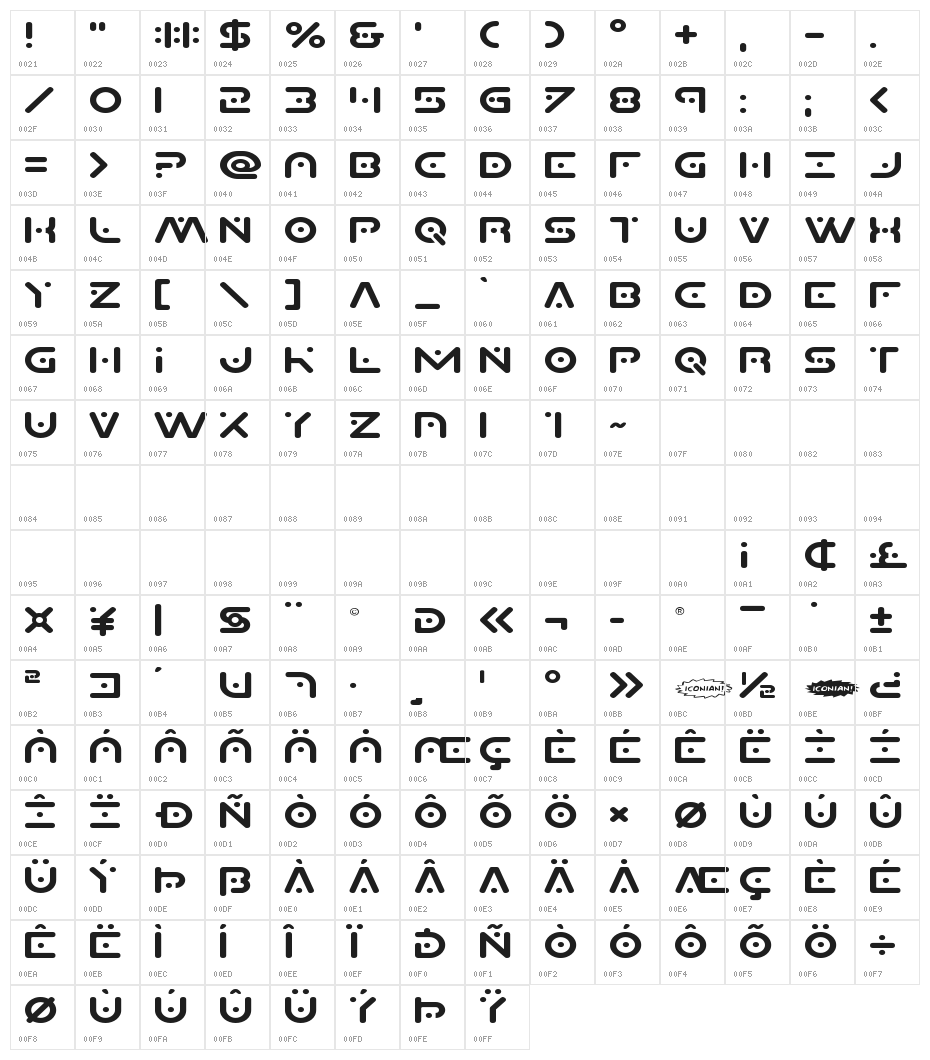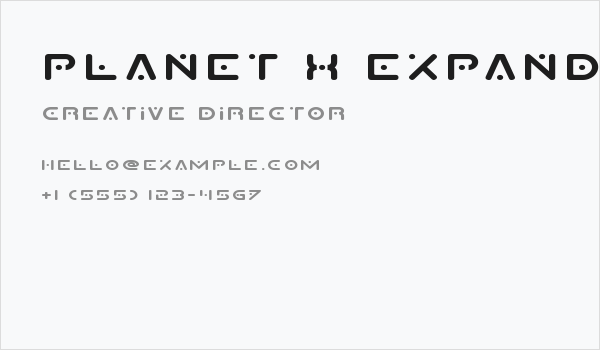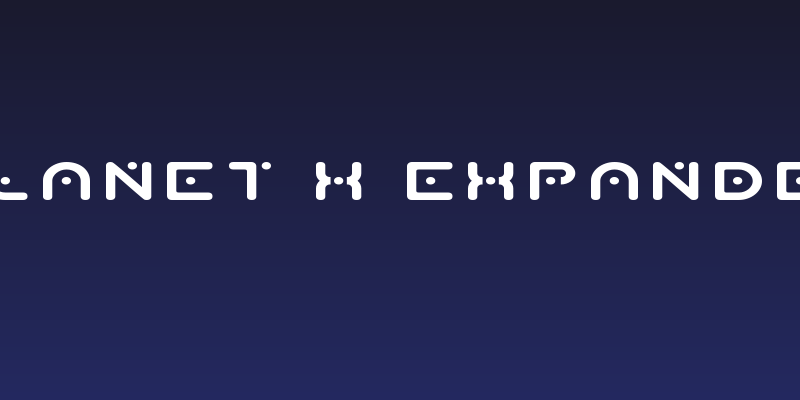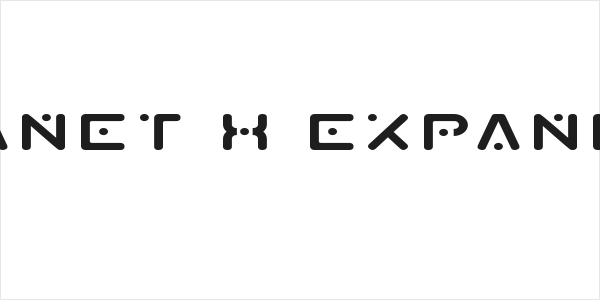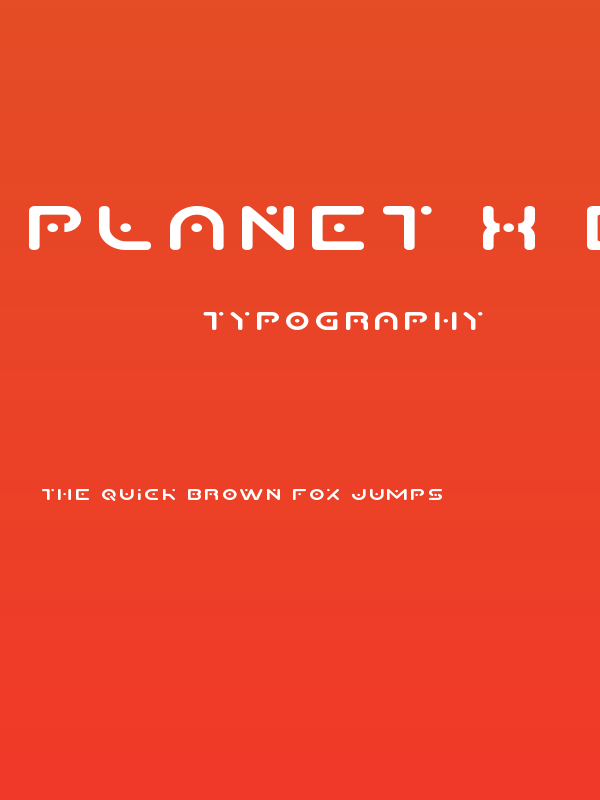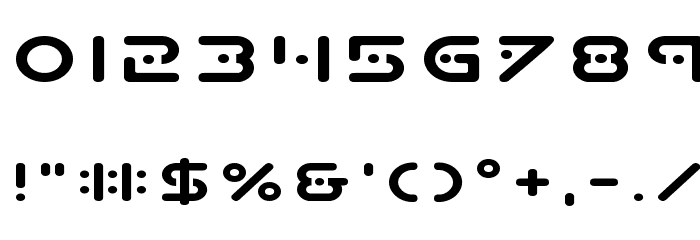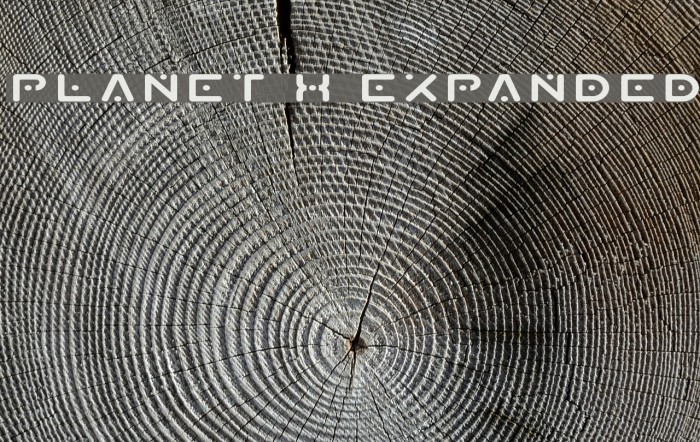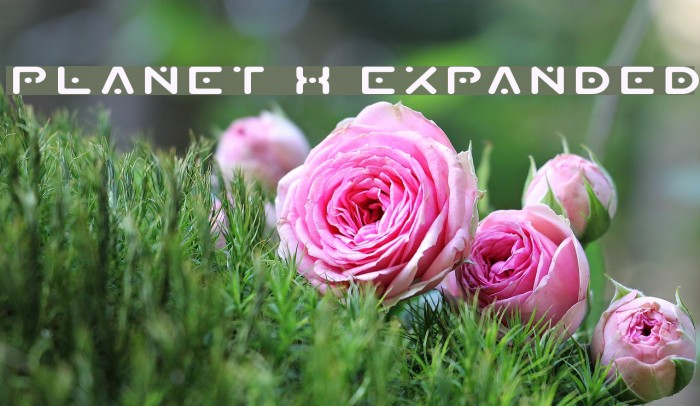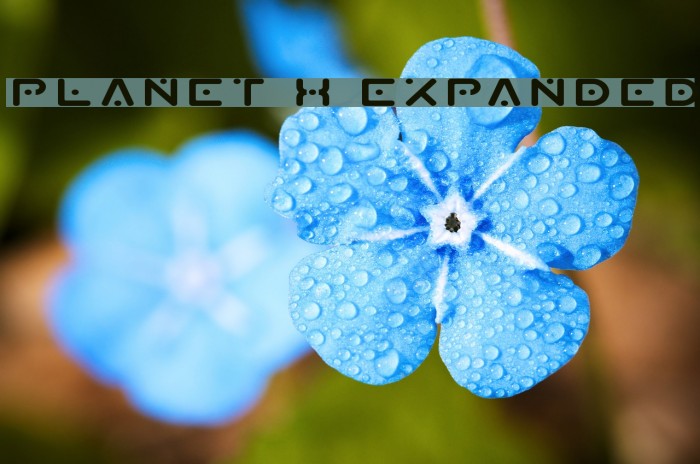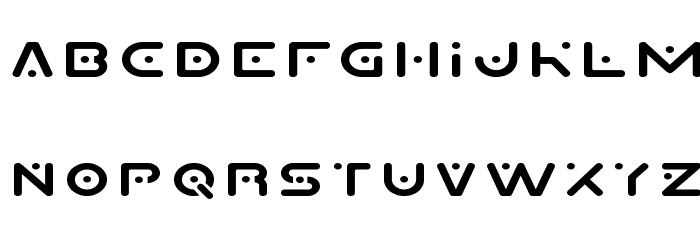
Planet X Expanded Font
Planet X Expanded Description
This futuristic font features a unique design with rounded edges and geometric shapes, giving it a distinct sci-fi aesthetic. The characters are composed of bold lines with consistent spacing, creating a uniform appearance. The use of dots and lines within the letters adds a modern, digital feel, reminiscent of technology and innovation. The numbers and special characters maintain the same stylistic elements, ensuring cohesion across all glyphs. This font's expanded width and bold weight make it ideal for attention-grabbing headlines and titles.